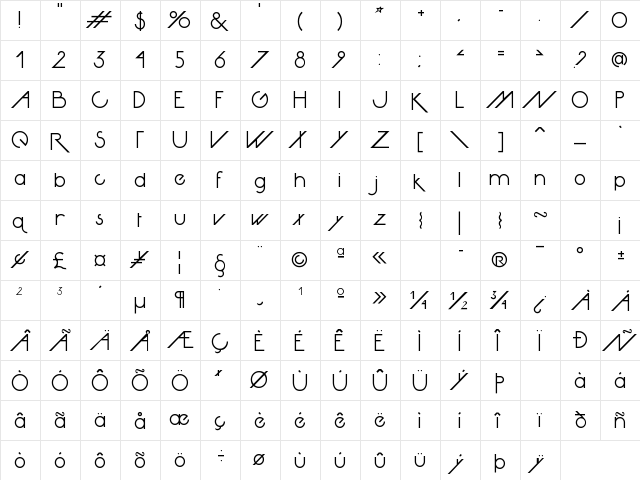
Avante Go Regular Font Preview
Avante Go Regular
Avante Go Regular Font Details
| Foundry | Essqu預roductions |
| Designer | Stephen Knouse |
Design Context for Avante Go Typeface
Avante Go takes a measured approach to typography — its balanced proportions and neutral character make it a reliable workhorse for both digital and print work.